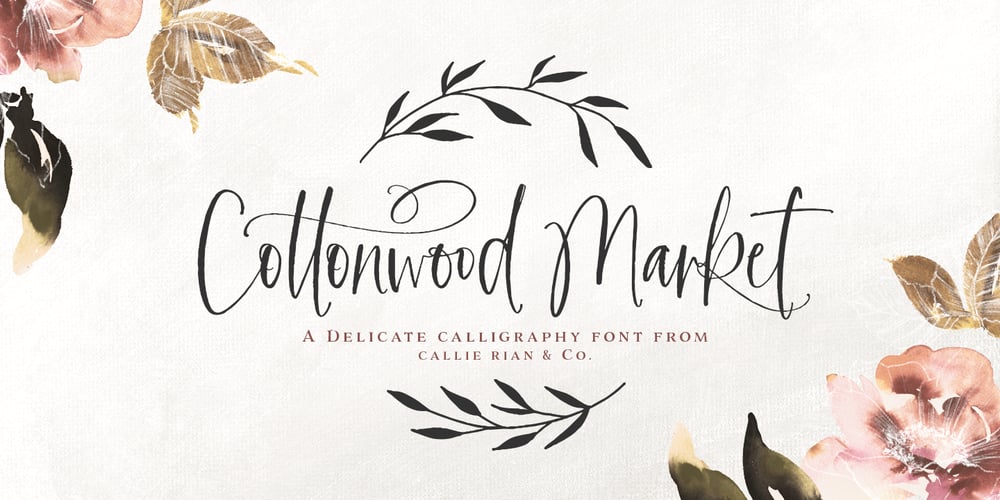
Cottonwood Market Font Family was designed by Callie Hegstrom and published by Make Media Co. Cottonwood Market contains 1 styles and family package options. Cottonwood Market is a sweet, upright calligraphy font with loads of decorative alternates and a charming signature feel. This lovely little calligraphy font is packed with alternates, ligatures, and an authentically inked texture. It’s both romantic and delicate, with thin lines and signature glyphs. Just check out that swanky ‘k!’ Cottonwood Market has plenty of personality for branding, bridal, merchandise, signage, signatures, and more! With over 90 ligatures and alternates to play with, you can have some serious fun with this font.